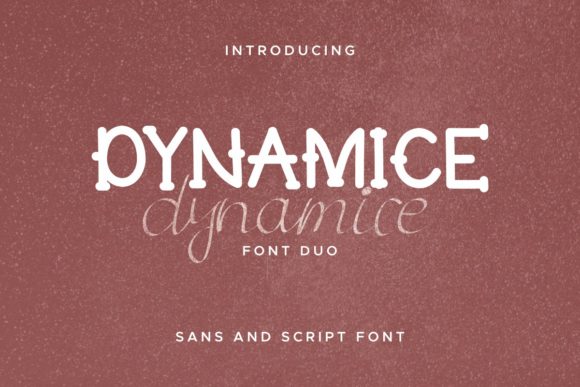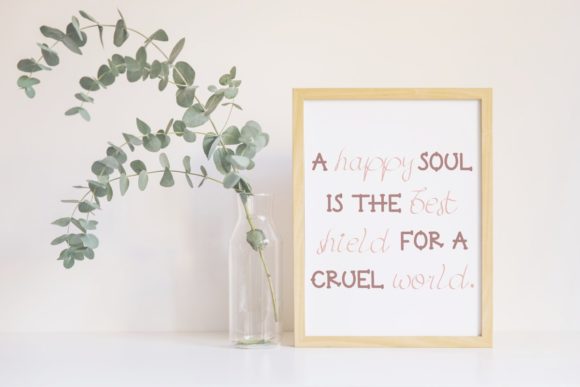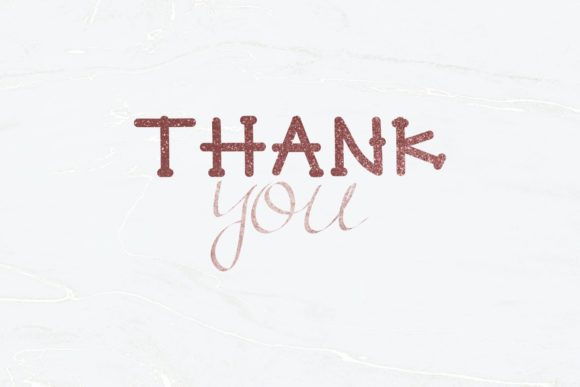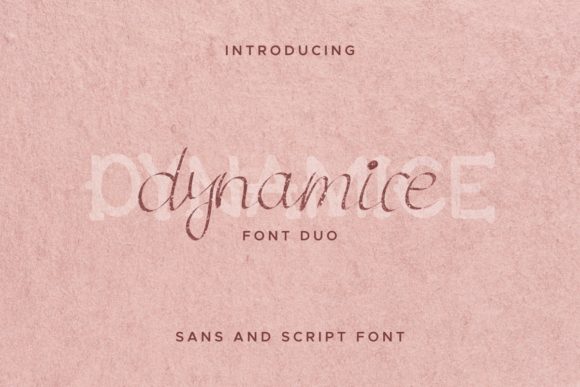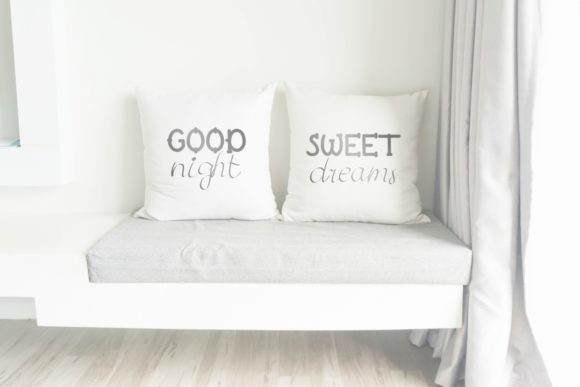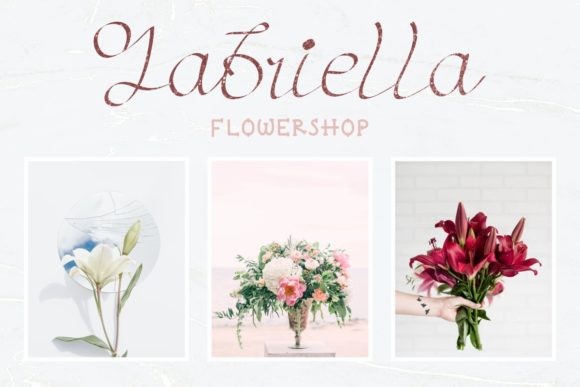
About Dynamice Font
Dynamice is a spectacular and incredibly unique duo font (serif and script). Incredibly versatile, this font fits a wide pool of designs, elevating them to the highest levels. Add this font to your favorite creative ideas and notice how it makes them come alive!